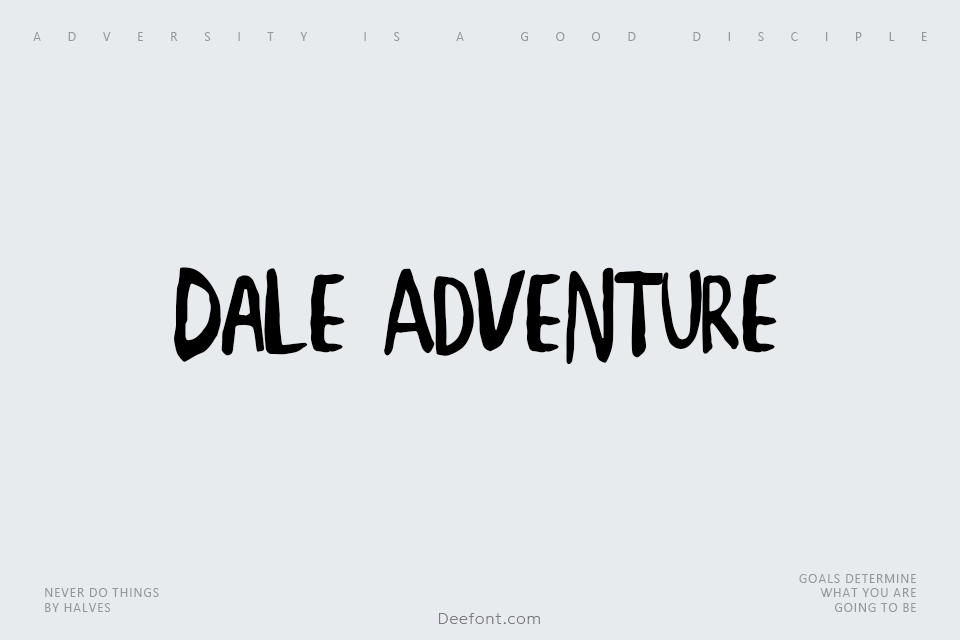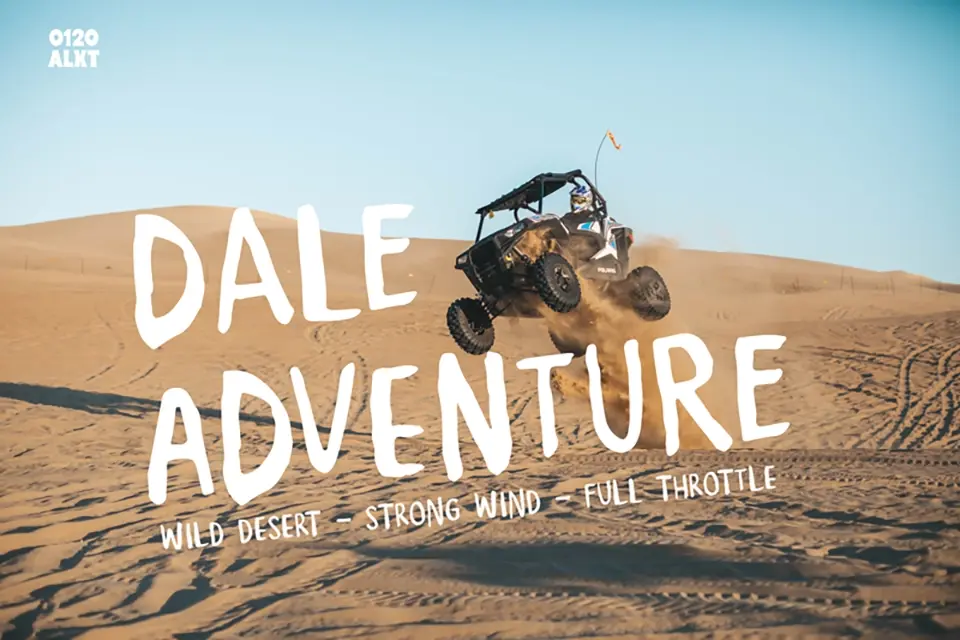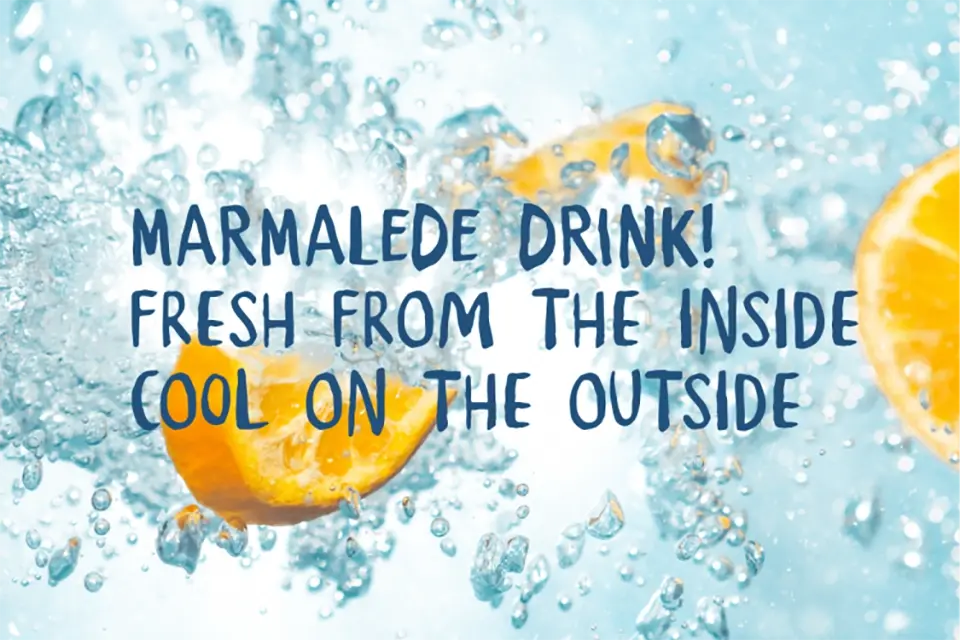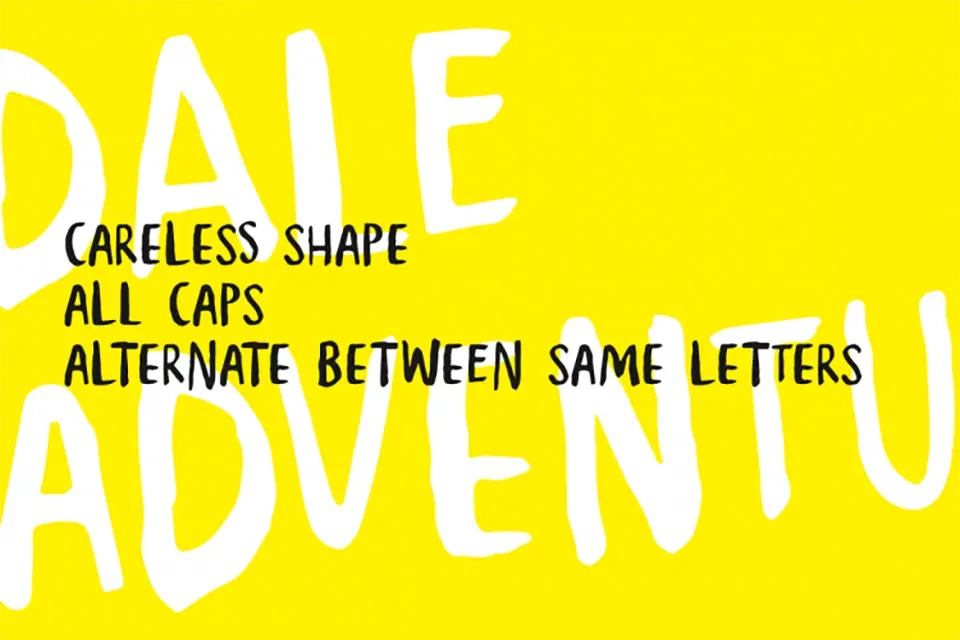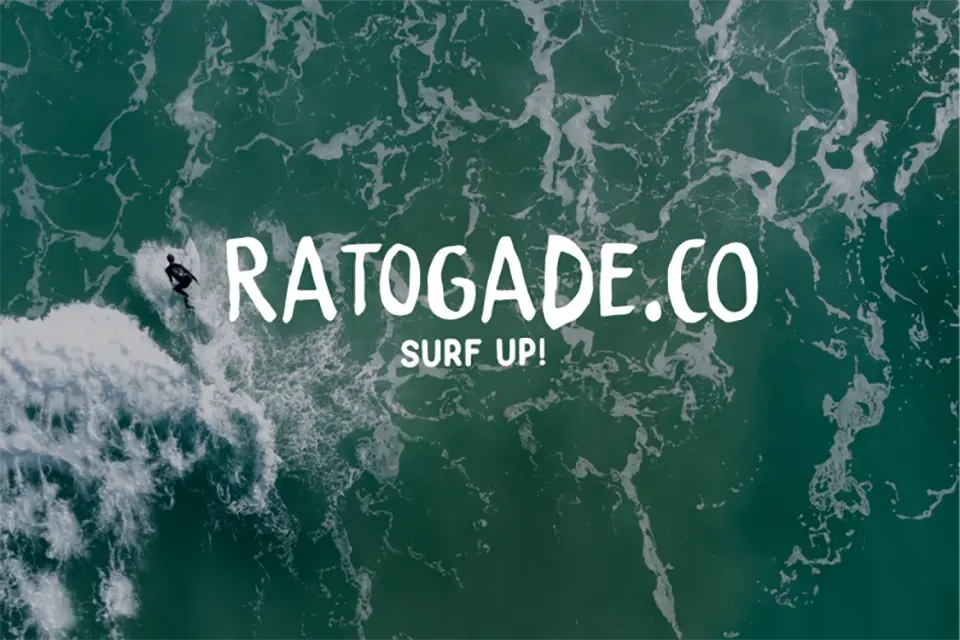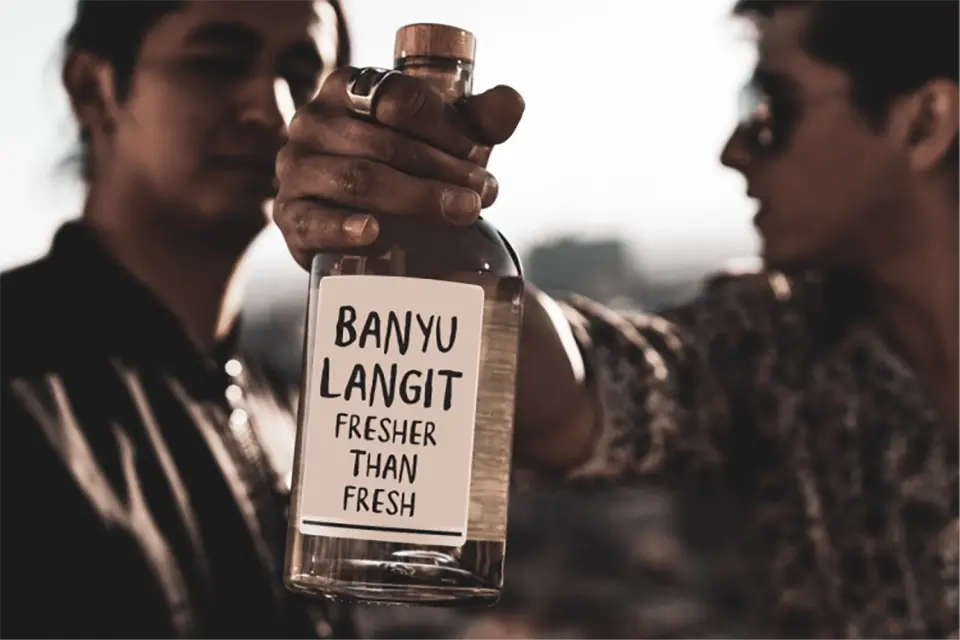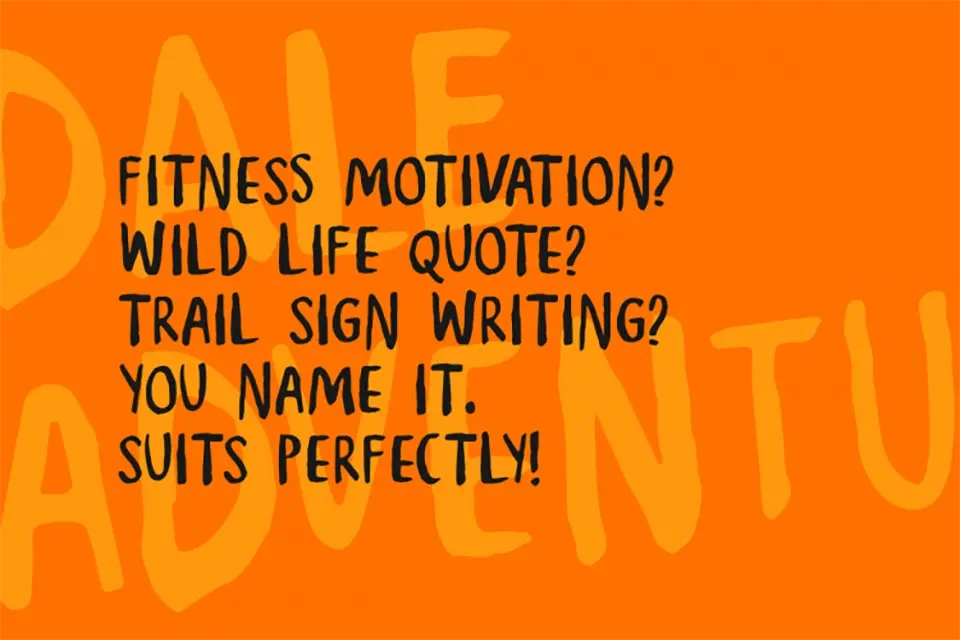
Dale Adventure Font
Dale Adventure is a bold, handwritten display font designed with dynamic energy and rugged character. This handwriting typeface features thick strokes and naturally imperfect shapes, inspired by outdoor exploration and adventure themes. Perfect for travel blogs, outdoor branding, adventure-themed designs, and sports graphics, Dale Adventure brings authentic spontaneity and excitement to any project. The font’s irregular lines and rough edges create a raw, authentic feel ideal for logos, headers, titles, and promotional materials targeting adventure-seeking audiences and brands.